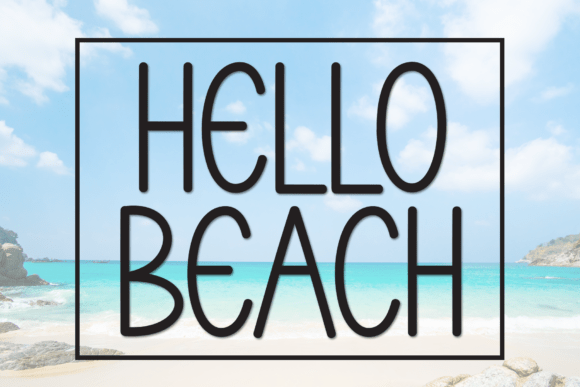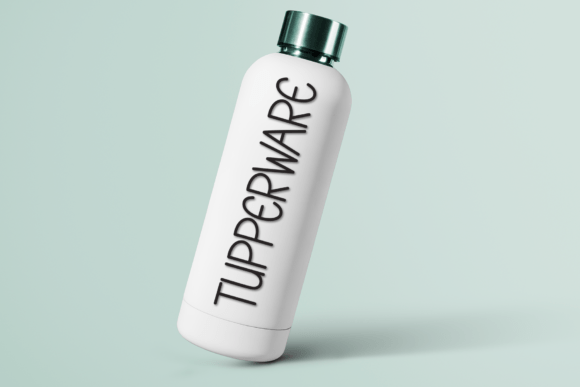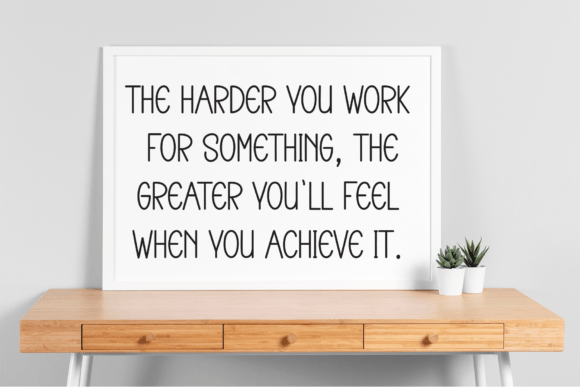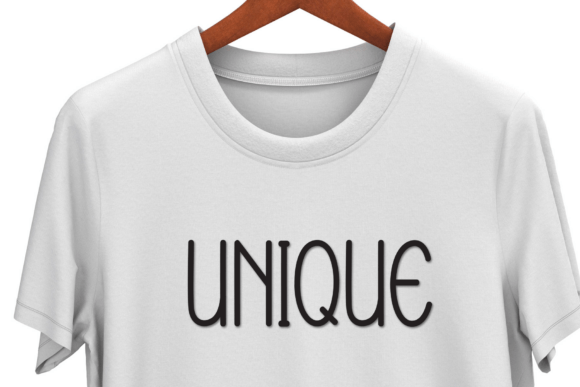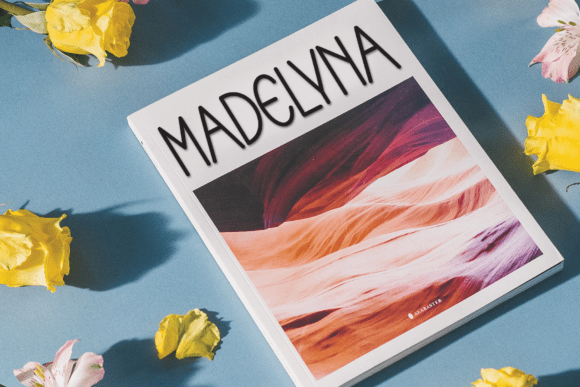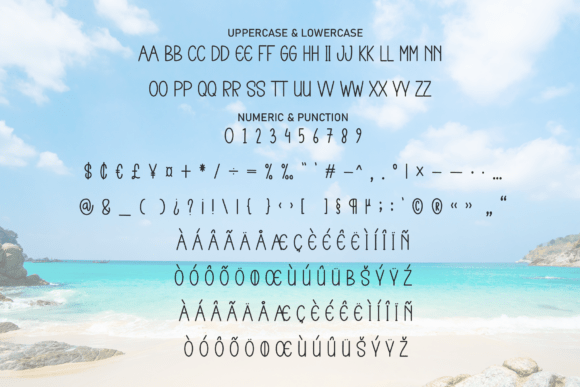
Unleash the Fun in Your Designs with Hello Beach Font
Have you ever been stuck on a creative project, searching for the perfect font to capture the essence of your idea? For many designers, that ‘aha’ moment comes when they stumble upon a font that perfectly embodies the mood and atmosphere they’re aiming for. For me, it was when I discovered the Hello Beach Font – a delightful display font that screams fun and relaxation.
With its clean lines and effortless vibe, Hello Beach Font is perfect for creating summer posters, event flyers, and playful branding. Whether you’re designing a beach-themed campaign or simply want to add a touch of whimsy to your projects, this cheerful typeface is sure to bring a breezy, laid-back feel to your work.
For designers, the Hello Beach Font is a valuable addition to their toolkit, offering a unique and versatile way to add personality to their designs. Its versatility makes it an excellent choice for a wide range of projects, from casual event promotions to more formal branding initiatives.
Hello Beach Font Key Features
- Unique Characteristics: The font features a unique blend of beach-inspired elements, including wave-like curves and subtle textures, adding a touch of whimsy to designs.
Hello Beach Font Review
Overall, I found the Hello Beach Font to be a refreshing addition to any design project. ✨ It’s perfect for creating a carefree, summer vibe, and the subtle beachy feel is sure to capture the attention of your audience.
The font’s unique characteristics, such as the rounded edges and soft curves, make it a great choice for titles and headings. ✨ The font’s versatility also shines through in its various font weights, which allows for a wide range of design possibilities.
While the Hello Beach Font has its strengths, there are a few limitations to consider: ⚠️ The font’s readability can suffer at smaller font sizes, making it less ideal for body text. Additionally, the font’s design may not be suitable for more formal or professional projects.
- Readability issues at smaller font sizes
- Not ideal for formal or professional projects
Overall, I think the Hello Beach Font is a great choice for designers looking to add a touch of whimsy and fun to their projects. While it may not be suitable for every project, its unique characteristics and versatility make it a valuable addition to any design library.
Tips for Getting the Most Out of “Hello Beach Font”
Use “Hello Beach Font” for beach-themed designs, such as summer invitations, beach party flyers, or surfboard graphics.
Combine “Hello Beach Font” with other beach-themed elements, such as seashells, palm trees, or beach balls, to create a cohesive design.
Experiment with different font sizes and styles to add visual interest to your design.
“Hello Beach Font” is perfect for:
– Beach-themed party invitations
– Summer-themed social media graphics
– Surfboard graphics
– Beach-themed logo designs
– Summer-themed advertisements
The recommended font size for Hello Beach Font is between 12pt and 24pt, depending on the intended use. For body text, 14pt to 16pt is a good starting point. For headings, 24pt to 48pt can be used for emphasis.